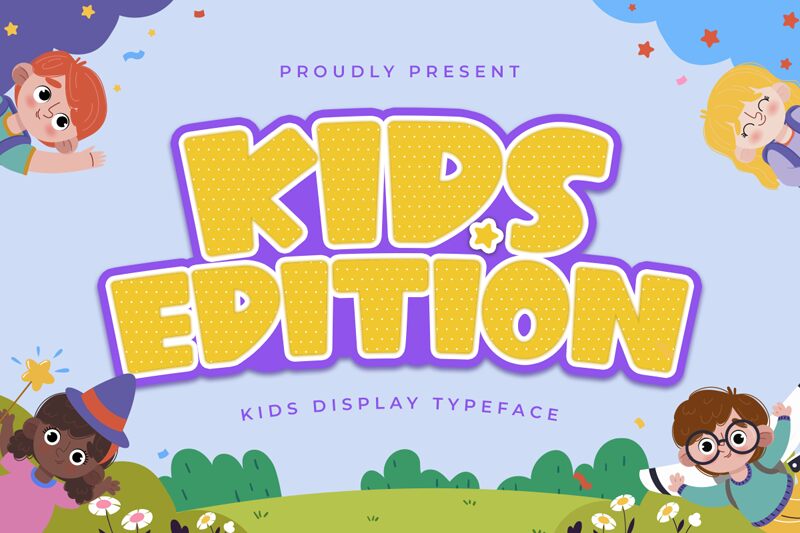
Kids Edition
Kids Edition by Kong Font bursts onto the scene with an ultra-bold personality that's impossible to ignore. This display font exudes a cartoon style that's playful and energetic, perfect for capturing the imagination and fun of childhood. Its semi-expanded width offers a friendly presence, while the exaggerated forms make each letter a character of its own.
The cheerful aesthetic of Kids Edition makes it an ideal choice for children's books, animated movie titles, and educational applications where engagement is key. The font's robust weight ensures excellent readability at various sizes, which can be particularly useful for digital interfaces targeting younger audiences.
Whether you're designing a logo for a family-friendly brand or crafting eye-catching headers for interactive games, Kids Edition brings a dose of whimsy and delight to creative projects aimed at young audiences or the young at heart.